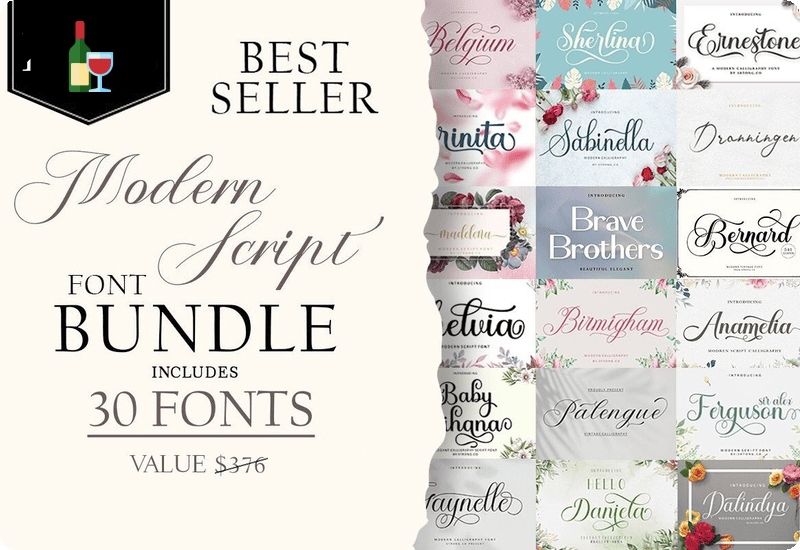
Designers, creatives, and enthusiasts, it’s time to upgrade your toolkit! The Modern Script Font Bundle brings you 30 premium fonts, expertly crafted to infuse elegance and creativity into any project. Whether you’re designing logos, creating invitations, or crafting social media graphics, this bundle has everything you need to leave a lasting impression.
What’s Included in the Modern Script Font Bundle?
This bundle includes 30 stunning fonts, meticulously designed for versatility and aesthetic appeal:
- Bernard Script & Handwritten Font
- Ernestone Script & Handwritten Font
- Anamelia Script & Handwritten Font
- Brailganta Script & Handwritten Font
- September Rain Font
- Sabinella Script & Handwritten Font
- Gellatia Script & Handwritten Font
- Birmigham Script & Handwritten Font
- Sherlina Script Script & Handwritten Font
- Redynand Script Font
- Brave Brothers Sans Serif Font
- Granetha Script & Handwritten Font
- The Pandoras Script & Handwritten Font
- Dalinya Script & Handwritten Font
- Fanya Script & Handwritten Font
- Brinita Script & Handwritten Font
- Sir Alex Ferguson Script & Handwritten Font
- Palengue Script & Handwritten Font
- Belgium Script & Handwritten Font
- Shelvia Script & Handwritten Font
- Madelena Script & Handwritten Font
- Baby Rihana Script & Handwritten Font
- Daniela Script & Handwritten Font
- Columbus Display Font
- Bella Bellivia Script & Handwritten Font
- Haedar Script & Handwritten Font
- Geynelle Script Font
- Fenivay Script Font
- Dronningen Signature Script & Handwritten Font
- Bernandes Script & Handwritten Font
Versatile Design Applications
These fonts are perfect for a wide array of projects:
- Logos and branding
- Invitations and stationery
- Social media graphics
- Posters and flyers
- Product packaging
- Web design
- And much more!
Professional Quality
Crafted by top typographers, each font in this collection is designed to deliver superior readability, intricate detail, and a polished finish.
Diverse Styles
From elegant script fonts to bold sans serifs, the Modern Script Font Bundle provides the versatility to suit any aesthetic. Whether you’re working on minimalist designs or intricate layouts, this bundle has the perfect font for the job.
Transform Your Projects with These Premium Fonts
The Modern Script Font Bundle isn’t just a collection of fonts; it’s a creative toolkit that empowers you to:
- Add elegance to wedding invitations.
- Create eye-catching logos and branding materials.
- Design captivating social media posts.
- Craft professional marketing collateral.
- Explore endless possibilities in your creative journey.